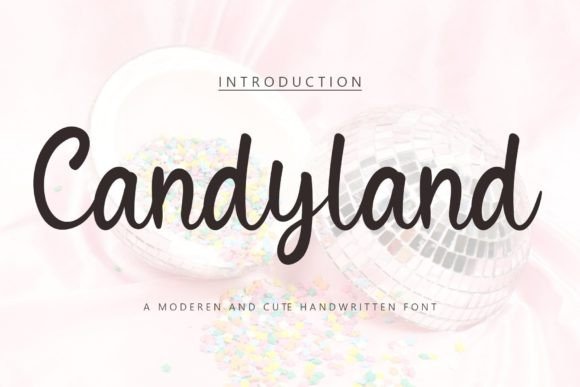
About Candyland Font
“Candyland” is a delightful and enchanting handwritten font that radiates sweetness and beauty. With characters that gracefully dance along the baseline, this font adds a touch of luxury and charm to any design project, transforming it into a visually captivating masterpiece.
The playful and whimsical nature of “Candyland” makes it perfect for a wide range of creative applications. Whether you’re designing greeting cards, invitations, posters, logos, branding materials, or any other project, this font infuses a sense of elegance and sophistication. Its handwritten style adds a personal touch, making your designs feel warm, inviting, and authentic.
The characters in “Candyland” are meticulously crafted, exuding a sense of grace and fluidity. The flowing lines and delicate curves create a visual rhythm that enhances the overall appeal of your designs. This font captures the essence of luxury, making it ideal for projects that require a touch of glamour and refinement.
Incorporating “Candyland” into your design projects allows you to effortlessly add a luxury spark. Its beautiful and expressive characters elevate the visual impact of your creations, making them stand out and leave a lasting impression on your audience. Whether you’re working on elegant invitations, high-end branding, or sophisticated event promotions, “Candyland” enhances the overall ambiance, making your designs truly enchanting.
Let “Candyland” be the font that brings a touch of sweetness and luxury to your creative endeavors. Its charm and beauty create a magical atmosphere, transforming your projects into visually stunning works of art. Embrace the font’s elegance and notice how it elevates your designs, giving them a luxurious spark that captures the essence of sophistication and style.